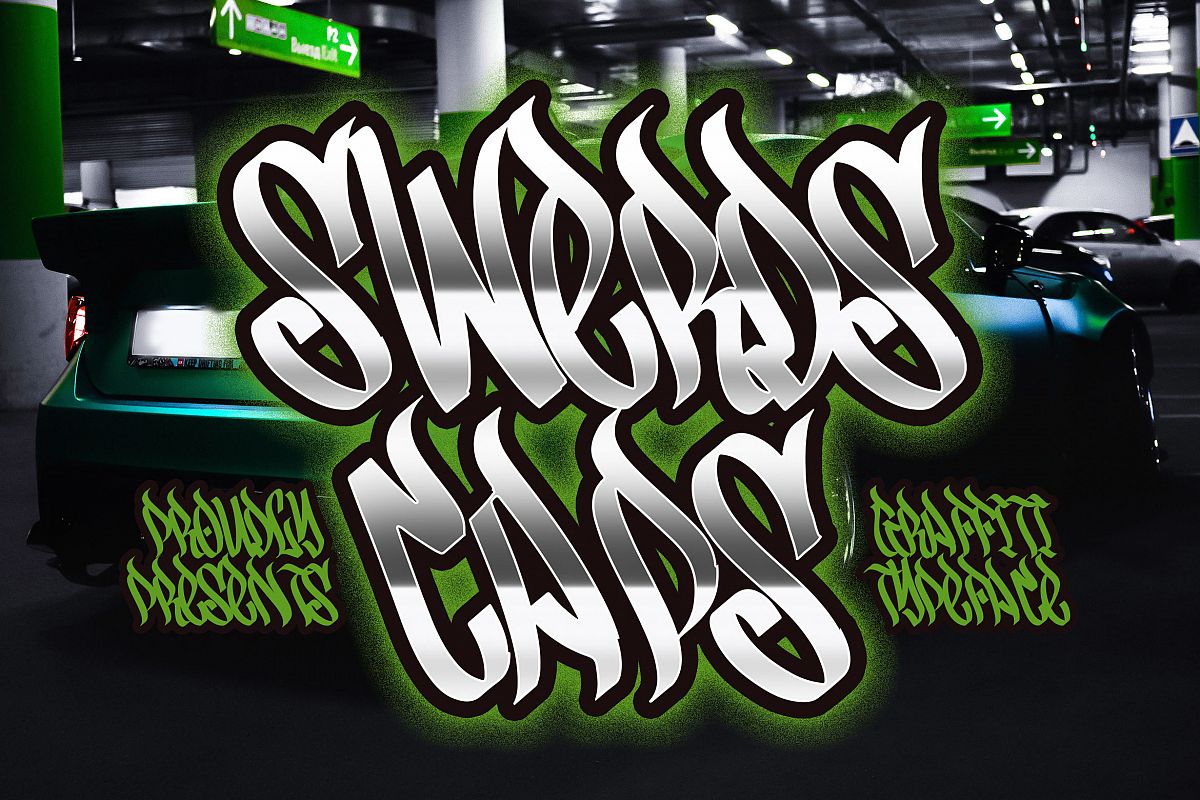
Introducing of our new product the name is Swerds Caps Graffiti Style Typeface. Swerds Caps inspired by graffiti style with a fun theme very good for graffity poster, Hip Hop Music, automotive, car poster etc
MULTILINGUAL ACCENT :ŽžŠŒšŸÀÁÂÃÄÅÆÇÈÉÊËÌÍÎÏÐÑÒÓÔÕÖØÙÚÛÜÝßàáâãäåæçèéêëìíîïñòóôõöøùúûüýÿ
FEATURES :- Uppercase